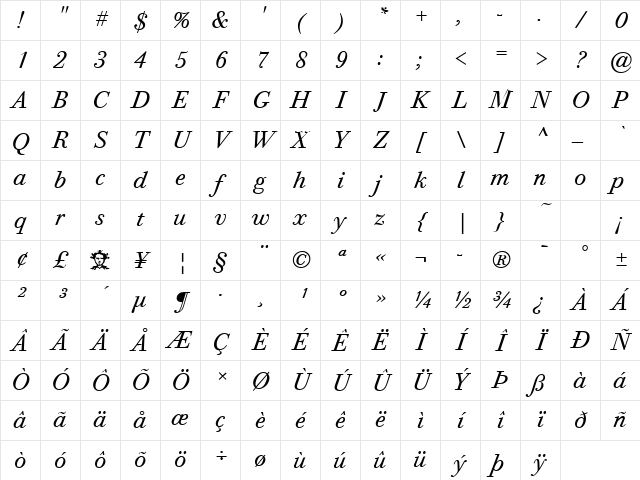
Complete Bodoni Twelve ITC TT BookItalic glyph index. Displaying only characters natively supported by Bodoni Twelve ITC TT BookItalic font.
Bodoni Twelve ITC TT is a composed and adaptable typeface that performs quietly and consistently across a wide range of design contexts. The slanted form adds forward momentum and visual energy.